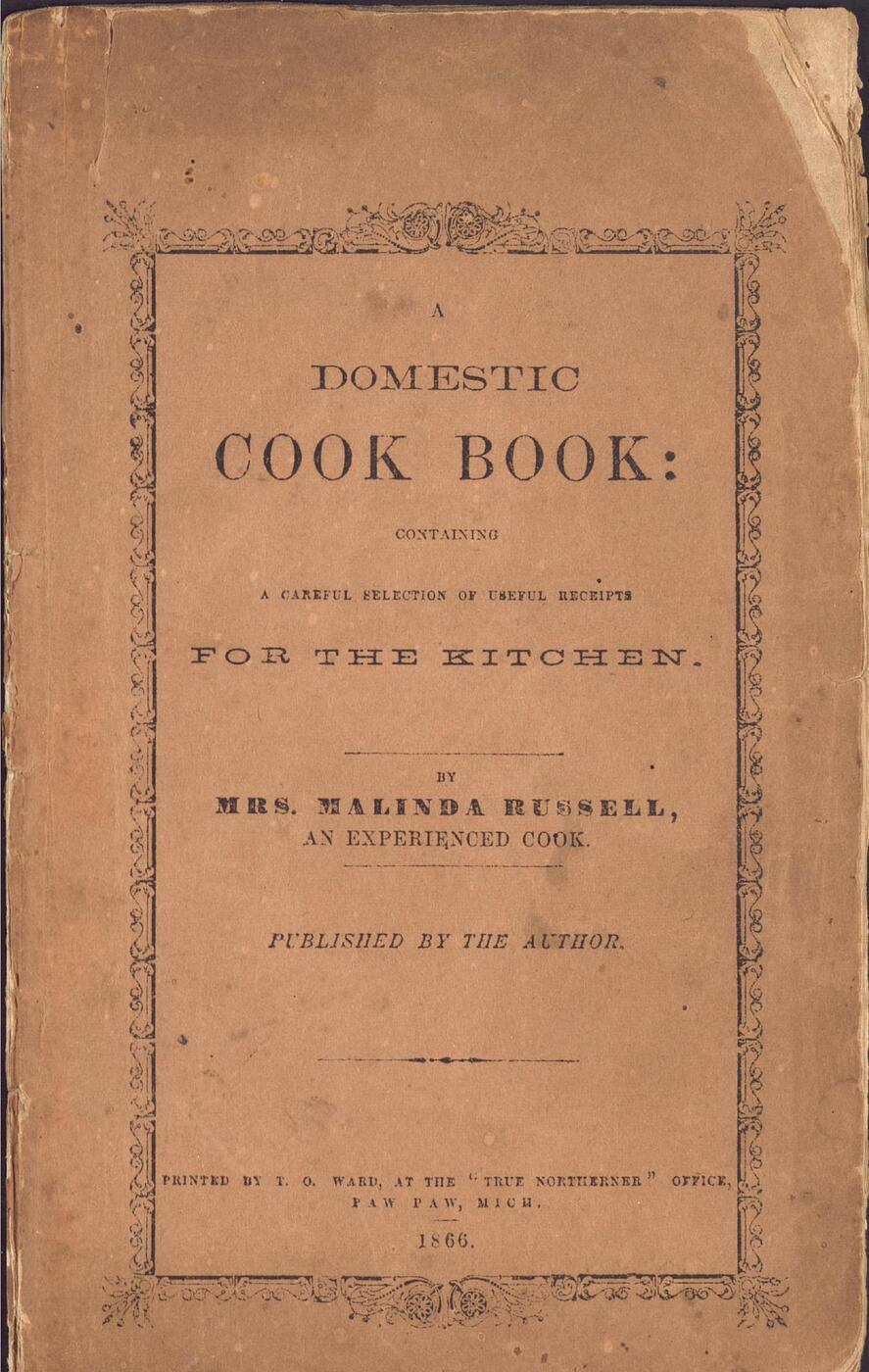
First Cookbook by an African American
I'm trying to recreate the cover of the first cookbook published by an African American.
There's a PDF of the contents, that have been OCR scanned. However, the cover has an ornate border, and decorative rules, which I've rebuilt as vector art. I can get close to the typefaces, but they're not quite right.
It was published in 1866, by T.O. Ward, in Paw Paw, Michigan.
The title is in ITC/Monotype Modern Display, but "DOMESTIC" has some obvious differences. The closest I could find was Engraver's Roman, but the serifs are elongated, and the tips more blunted.
"FOR THE KITCHEN" is similar, but there is very little change in weight between the crossbars and vertical strokes. It almost seems slab-serif.Russell-Type-Kitchen2.png.45a5694cd414c05f0728982a7c30634f.png
The last mystery may be a keystone. Perhaps a display face of one of these.Russell-Type-Mrs.Melinda2.png.b7828274aa1f92a79bf16bf8f266e4f8.png
Typefaces of this era often had very generic names. It may take some time to trace the original sources to an American foundry type specimen of the era.
In the meantime, Archive Lightface seems to be a digital revival of the face used for DOMESTIC (source is likely Roman Extended Lightface, available in metal and wood type in the 19th century).
Another revival by the same foundry is very similar for FOR THE KITCHEN: Archive Antique Extended, thought it differs from your source in that it has serifs on the crossbars of the Es. King Tut, a revival of Egyptian Expanded, is a bit closer (no serif on the E crossbar).
MRS. MALINDA RUSSELL could be replicated with Normande/Fette Antiqua.
I saw Archive Lightface, but that speaks to my comment about wanting What the Font (MyFonts) to have a checkbox telling the algorithm "it's a crappy scan", and that I'm not looking for distressed type. I wouldn't have taken the time to make the ornaments super-crispy! I appreciate the reference to Roman Extended Lightface. I've got an Adobe license, so I'll probably use that and squish it a little.
Archive Antique Extended, truly is slab serif, but again distressed. The stokes in King Tut are too nuanced, but I'm digging CanadaType.com, so thanks for that resource!
Fette Antiqua is a good enough match. I hate to mix so many typefaces on the same page, but in the end only people like us are going to notice. Since it's only a few line of text, I'll probably just tweak a few serifs.
That really leaves just FOR THE KITCHEN. Do you know what Archive Antique Extended is based on?